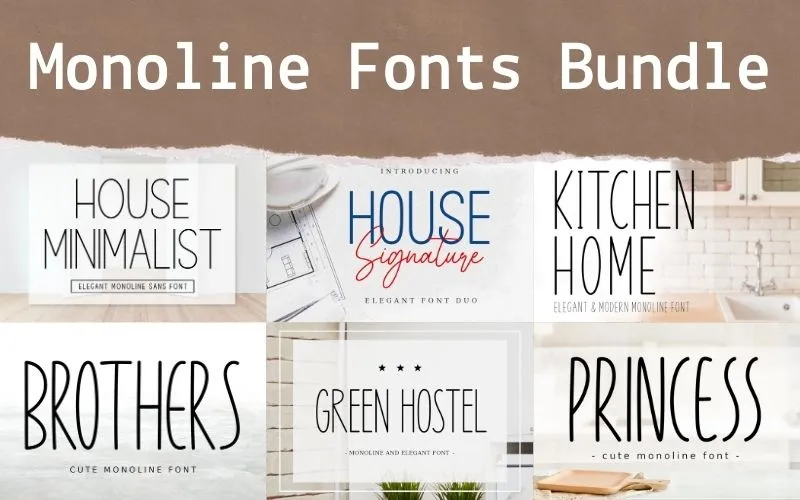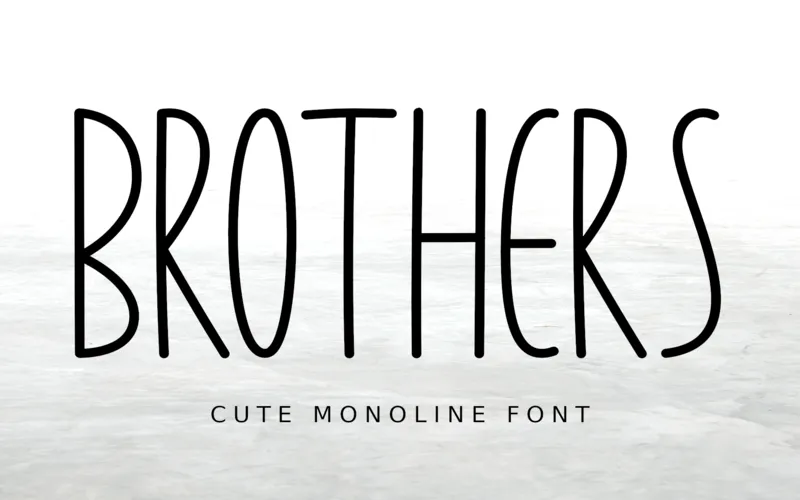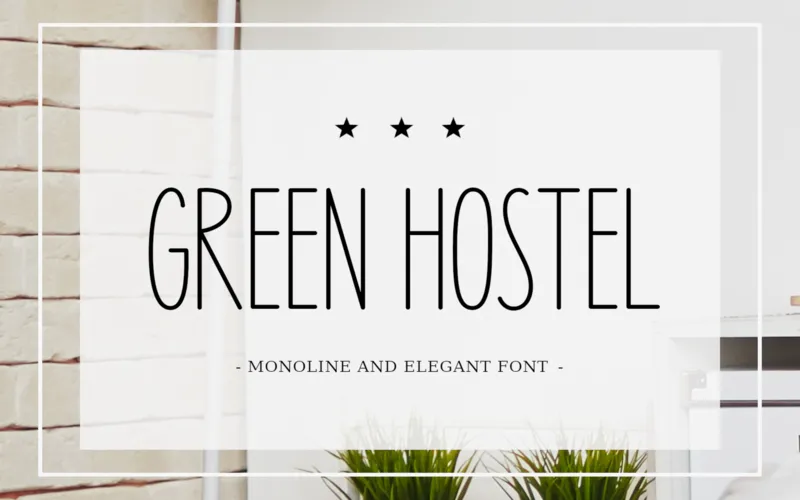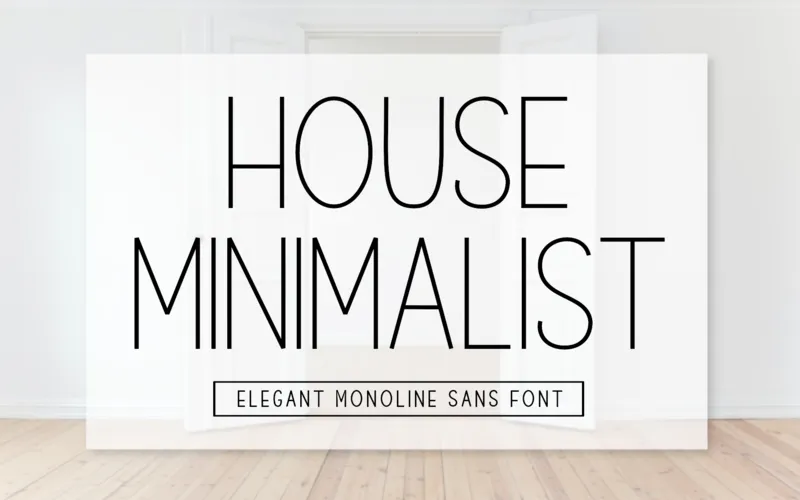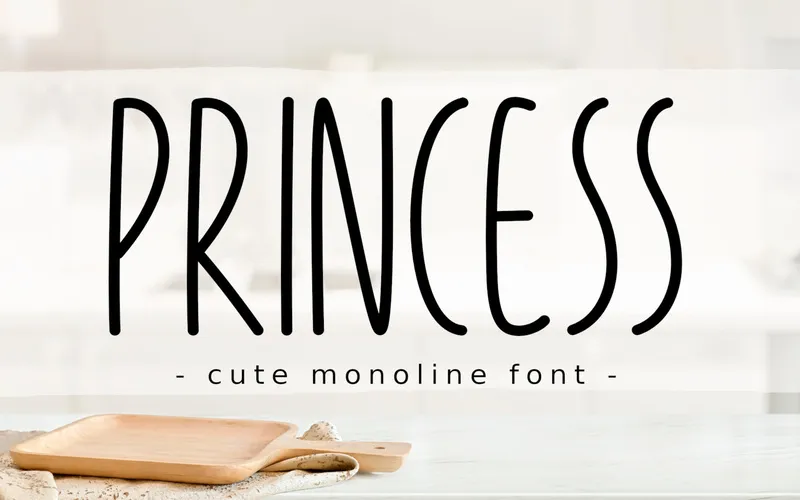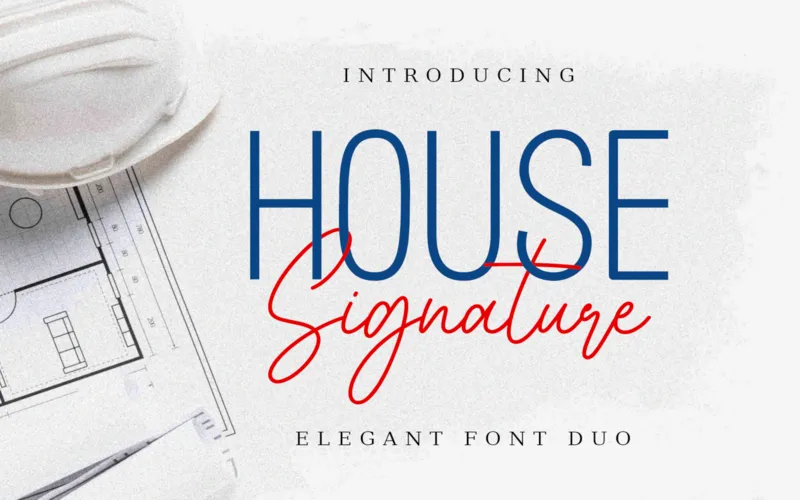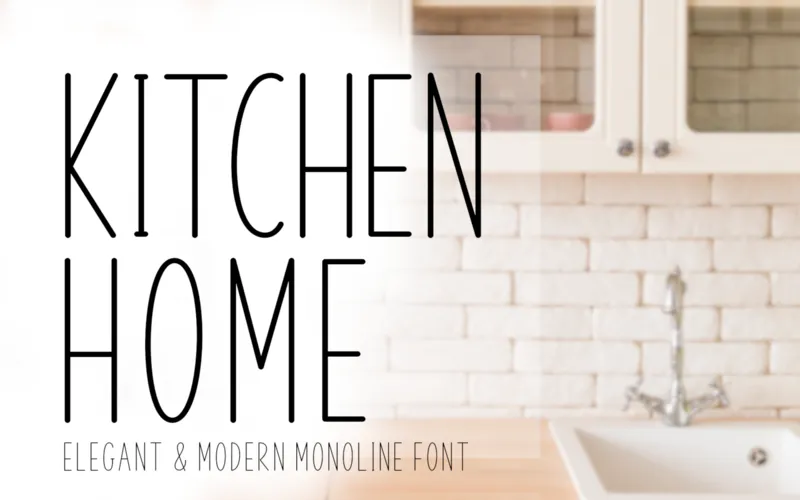
The Monoline Fonts Bundle
These Monoline Script fonts are ideal for:
- Branding
- Editorial
- Events
- Invitations
- Merchandise
- Website Designs
- Font Styles: Monoline & Script.
- Types of fonts included: Modern.
A Preview of the Organic Fonts Bundle:
Brothers Cute Monoline Font:
Green Hostel Monoline & Elegant Font:
House Minimalist Elegant & Monoline Sans Font:
House Signature Elegant Font Duo:
Kitchen Home Modern Monoline Font:
Princess Cute Monoline Font: